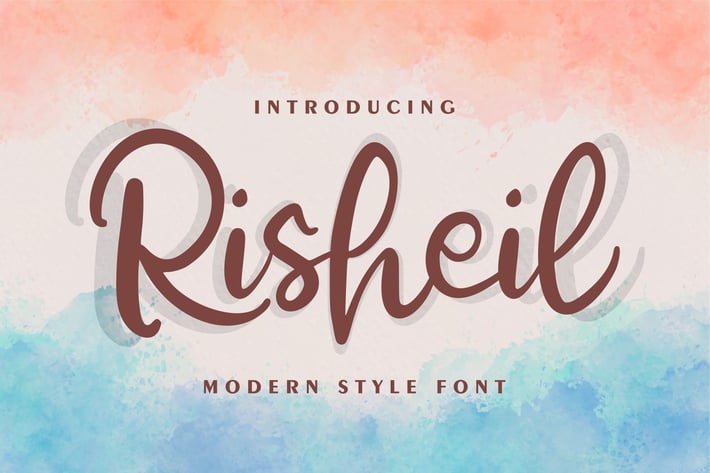
Risheil | Modern Style Font
Risheil | Modern Style Font with a calligraphy style, So beautiful on invitation like greeting cards, branding materials, business cards, quotes, posters, and more!